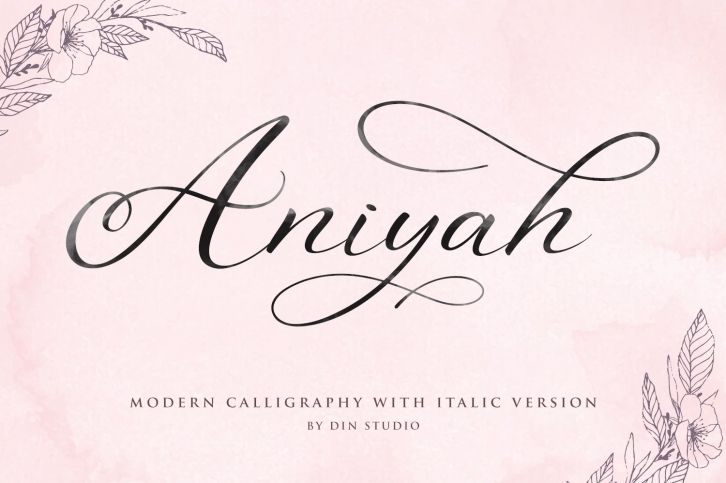
Introducing Aniyah Script - Beautiful Calligraphy.
Made with naturally handwritten and modern style. it's bring beautiful and modern typeface. Aniyah Script best use for wedding, branding, logotype and quotes.
Aniyah Script Features :
- Beautiful ligatures
- Numbering & amp; Punctuation
- 1 front swash & 2 end swash (a-z)
- Alternates (b,d,g,h,j,k,l,t)